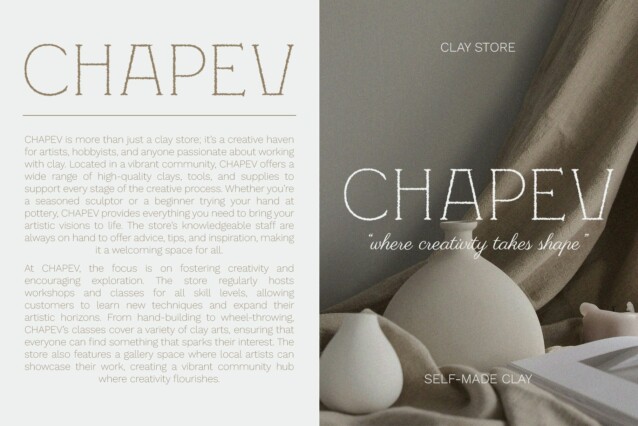
Aurlen Rough Font
Aurlen Rough Font: Refined Elegance with a Textured Edge
Modern Serif with a Stylish Twist
Aurlen Rough is a modern serif font that combines clean, minimalist design with a unique rough texture. The font features elegant curves and precise lines, creating a sophisticated and contemporary look ideal for high-end branding and editorial layouts.